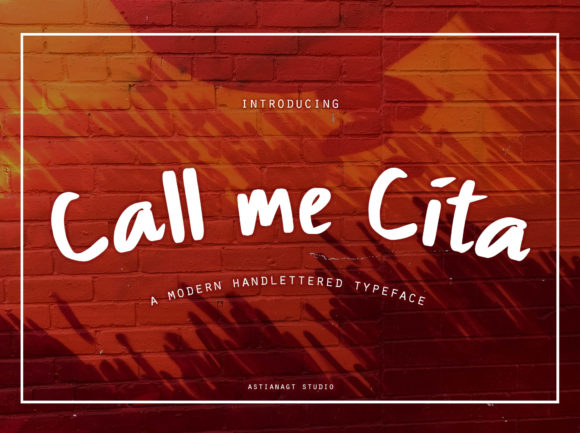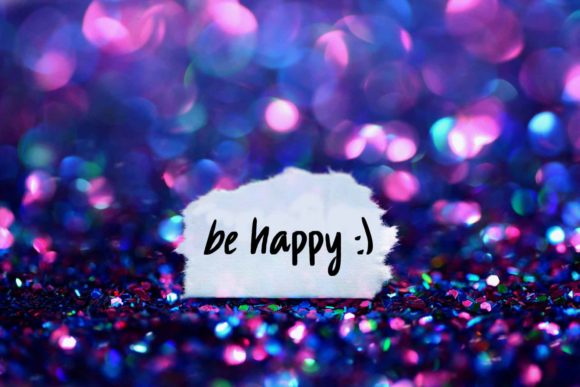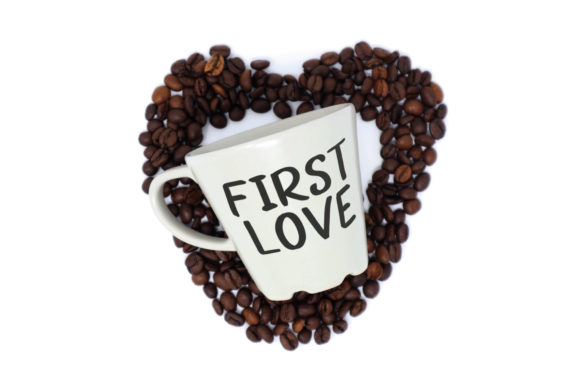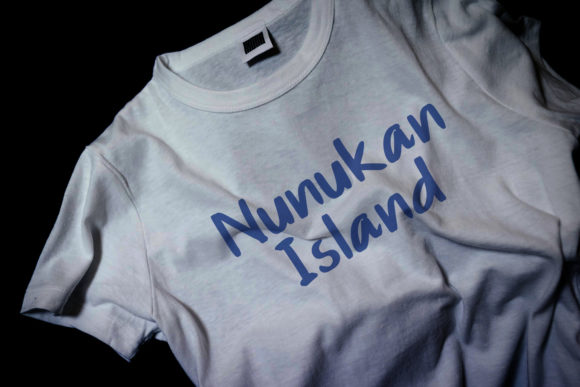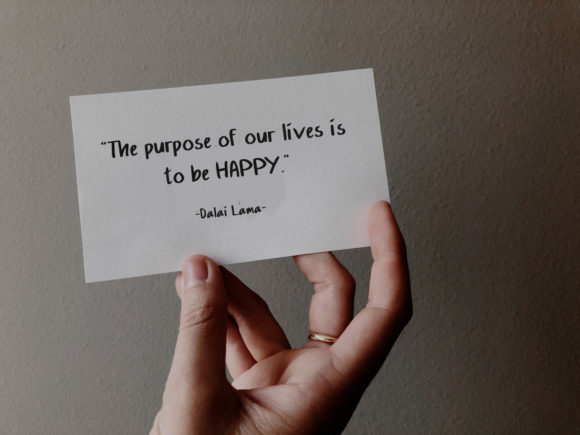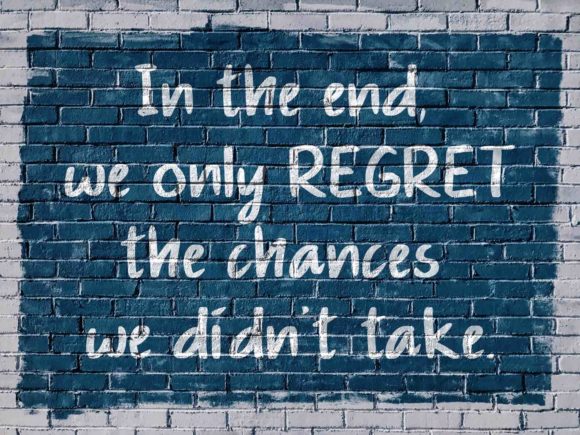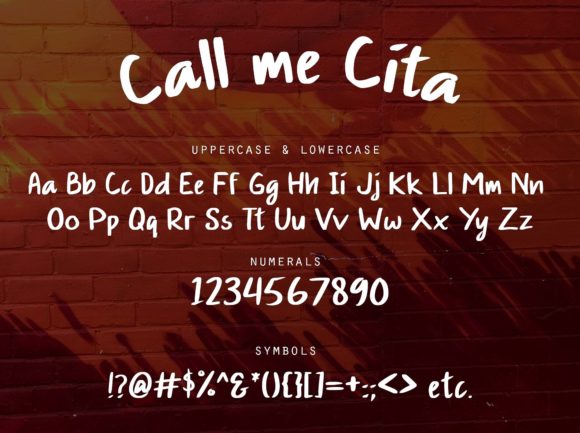
Call Me Cita Font
About Call Me Cita Font
Call Me Cita is a timeless handwritten font, carefully handcrafted to become a true favorite. Its casual charm makes it appear wonderfully down-to-earth, readable and, ultimately, incredibly versatile. This versatility will appeal to a wide range of crafty ideas, from letterheads and titles, to stationery.